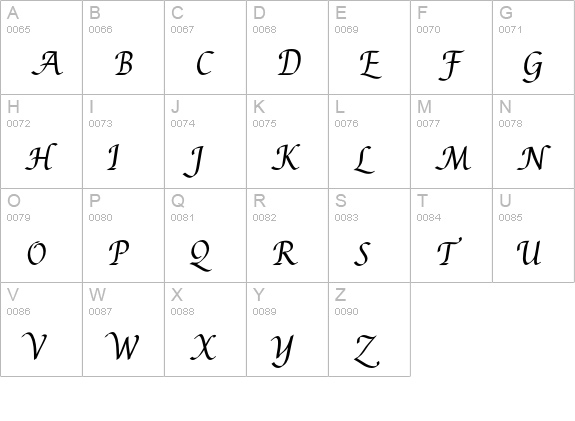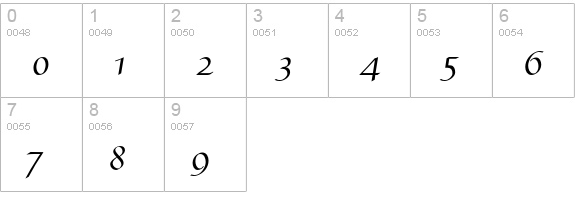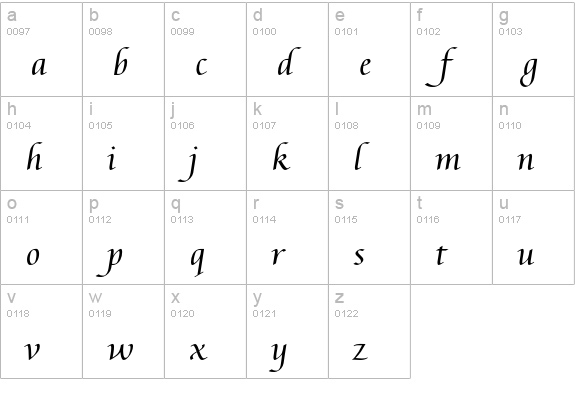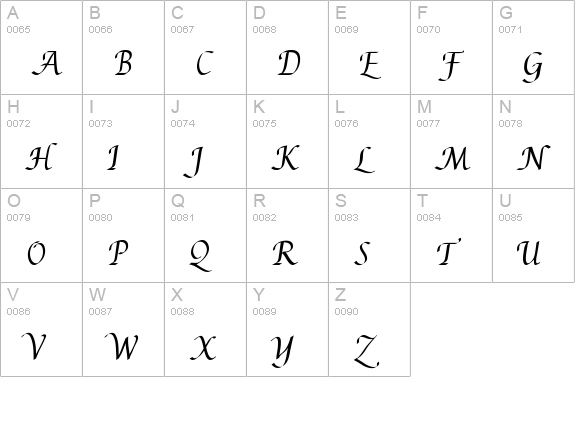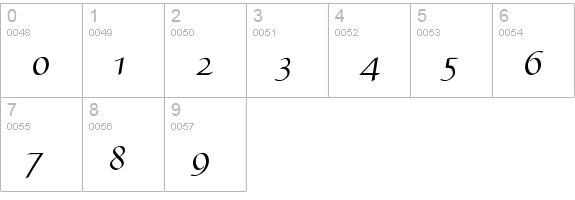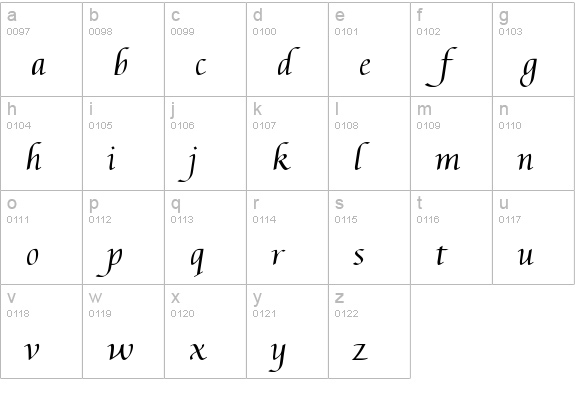
Augusta Cancellaresca Std is a beautifully crafted font that exudes elegance and sophistication. Its intricate details and flowing curves make it perfect for adding a touch of class to any design project. This versatile font can be used for a variety of purposes, from invitations to branding to signage. What sets Augusta Cancellaresca Std apart is not just its stunning aesthetic appeal, but also the fact that it is free to download. You can easily access this exquisite font at FontsMarket.com, where you can unleash your creativity and bring your design ideas to life with this timeless typeface. Whether you're working on a wedding invitation, a logo design, or any other project that calls for a touch of refinement, Augusta Cancellaresca Std is sure to impress. Download it for free today and elevate your designs with this exquisite font.